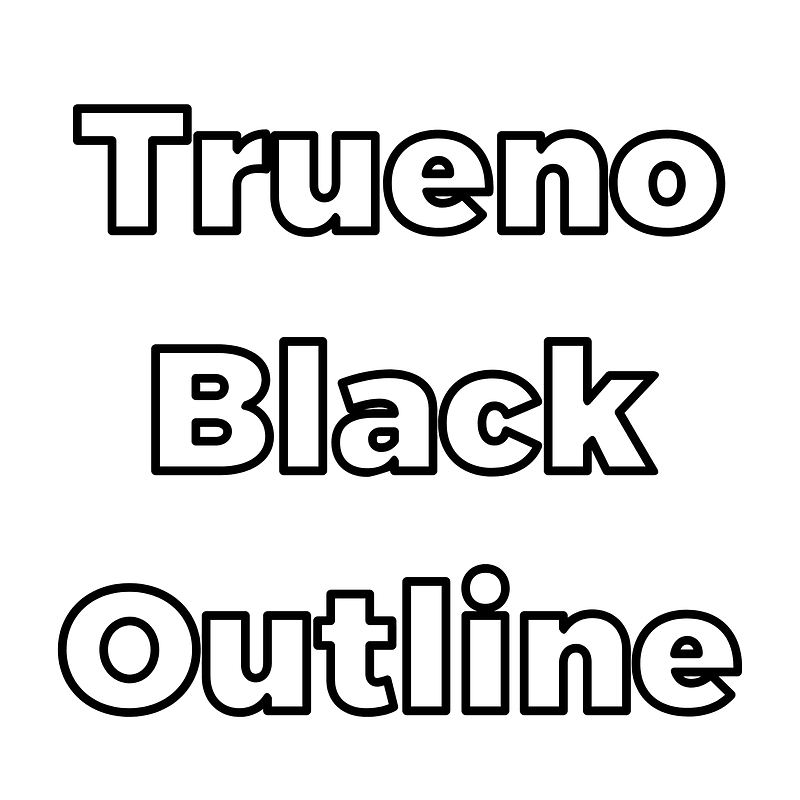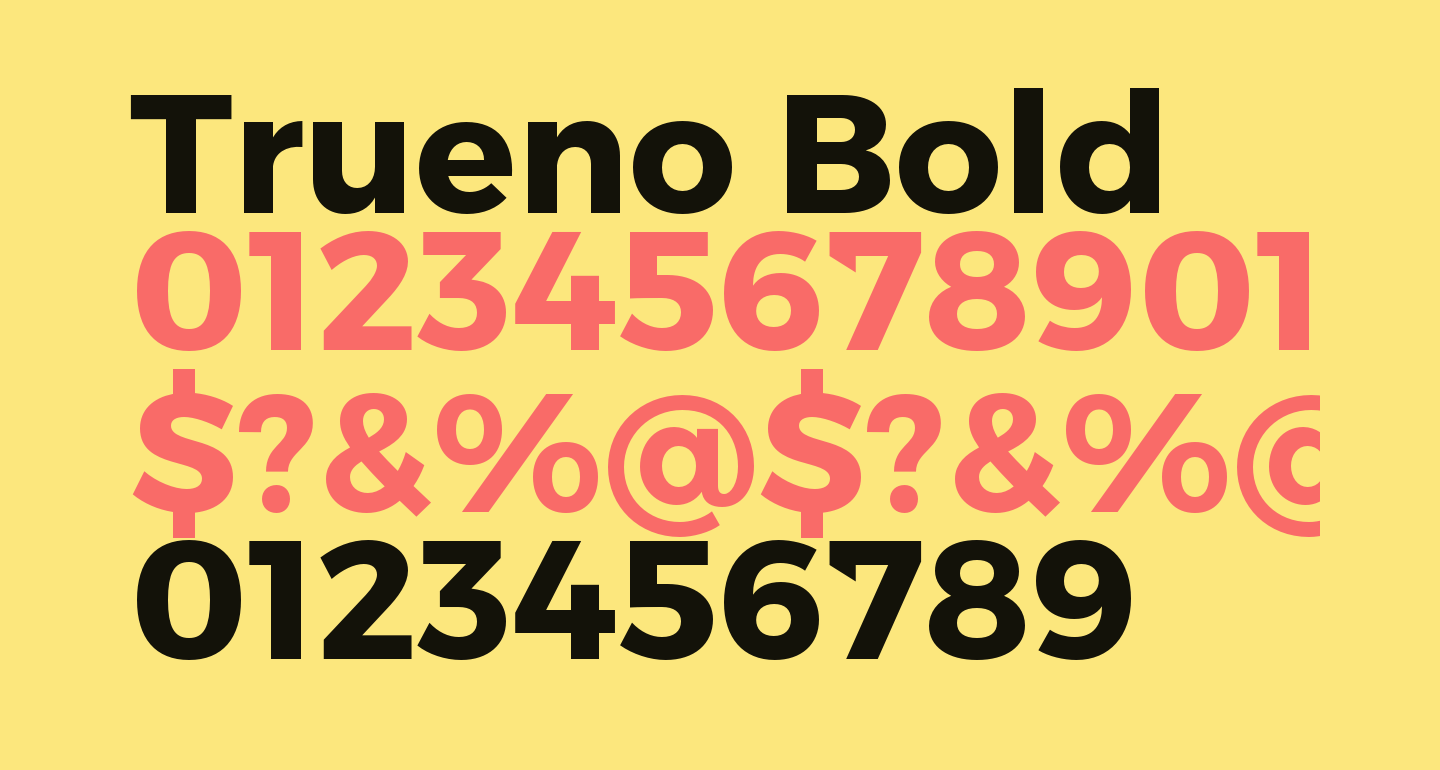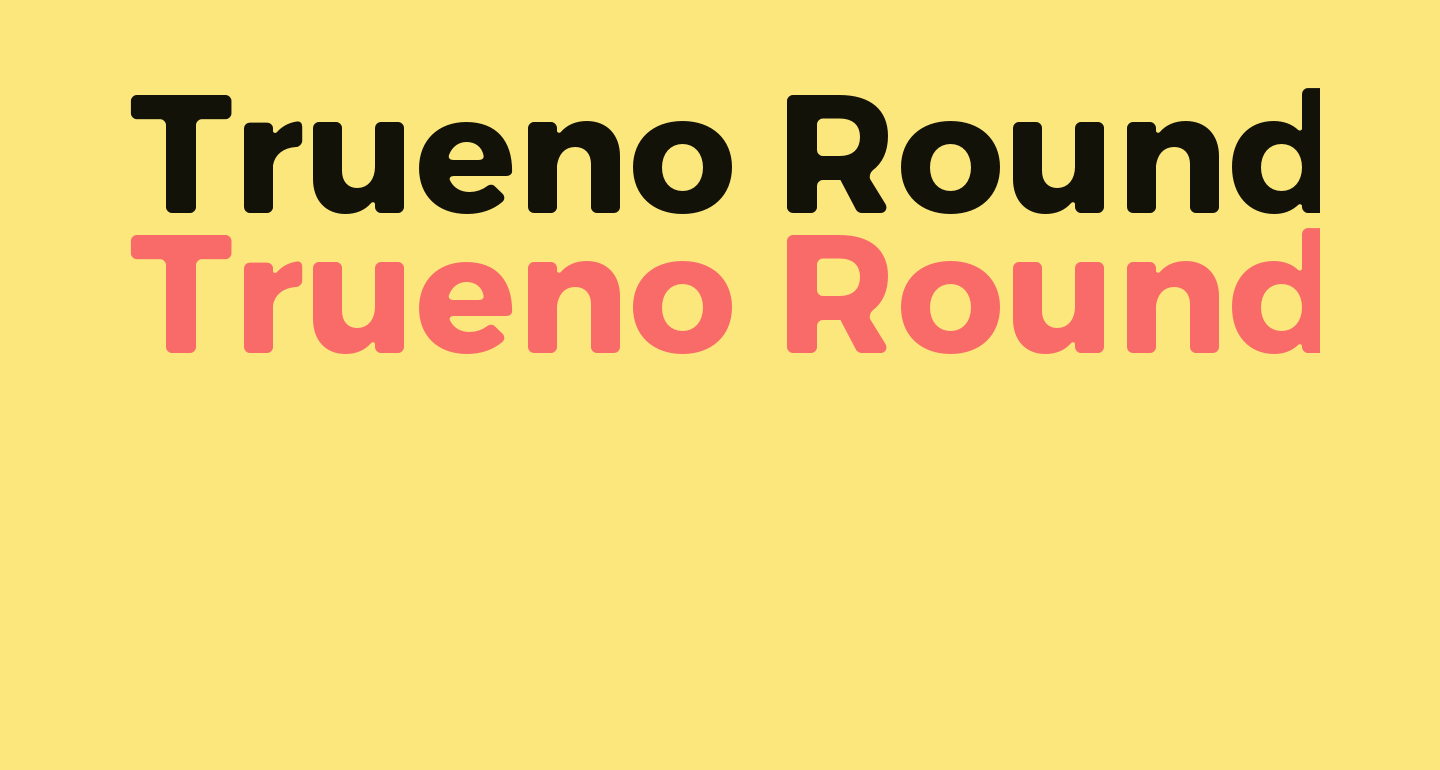
Trueno Font Commercial . Version 3.001b, adds 2 new weights,. The typeface contains 22 files and supports 53 languages.
The typeface contains 22 files and supports 53 languages. Web free download of trueno font family with 22 styles. Web the trueno font contains 378 beautifully designed characters.
This font is forked from montserrat by our newest designer, jasper. ️ customize your own preview on ffonts.net to make sure it`s the right one for your designs. Released in 2014 by kineticplasma fonts and licensed for. This font is forked from montserrat by our newest designer, jasper.
Trueno Font Commercial - Version 3.001b, adds 2 new weights,. The typeface contains 22 files and supports 53 languages. This font is forked from montserrat by our newest designer, jasper. Web trueno sans font family was designed by jasper as a modification of montserrat by the latest author, and contains two additional styles as well as reinforced font metadata, smaller font file sizes, and.
Trueno Font Commercial - Web trueno is a font. Web trueno sans font family was designed by jasper as a modification of montserrat by the latest author, and contains two additional styles as well as reinforced font metadata, smaller font file sizes, and many other enhancements. Released in 2014 by kineticplasma fonts and licensed for. Version 3.001b, adds 2 new weights,. The typeface contains.
Trueno Font Commercial - The typeface contains 22 files and supports 53 languages. The license is sil ofl 1.1. ️ customize your own preview on ffonts.net to make sure it`s the right one for your designs. Web the trueno font contains 378 beautifully designed characters. Web trueno font is a fork from the open source font, montserrat, licensed under the sil open font license,.
Trueno Font Commercial - Web trueno sans font family was designed by jasper as a modification of montserrat by the latest author, and contains two additional styles as well as reinforced font metadata, smaller font file sizes, and many other enhancements. Released in 2014 by kineticplasma fonts and licensed for. Version 3.001b, adds 2 new weights,. This font is forked from montserrat by our.
Trueno Font Commercial - The license is sil ofl 1.1. ️ customize your own preview on ffonts.net to make sure it`s the right one for your designs. This font is forked from montserrat by our newest designer, jasper. Version 3.001b, adds 2 new weights,. Released in 2014 by kineticplasma fonts and licensed for.
Trueno Font Commercial - Web free download of trueno font family with 22 styles. Released in 2014 by kineticplasma fonts and licensed for. ️ customize your own preview on ffonts.net to make sure it`s the right one for your designs. Web trueno sans font family was designed by jasper as a modification of montserrat by the latest author, and contains two additional styles as.
Trueno Font Commercial - Released in 2014 by kineticplasma fonts and licensed for. The typeface contains 22 files and supports 53 languages. Web the trueno font contains 378 beautifully designed characters. Version 3.001b, adds 2 new weights,. Web trueno font is a fork from the open source font, montserrat, licensed under the sil open font license, with several new.
Trueno Font Commercial - ️ customize your own preview on ffonts.net to make sure it`s the right one for your designs. Web the trueno font contains 378 beautifully designed characters. Version 3.001b, adds 2 new weights,. The typeface contains 22 files and supports 53 languages. Web trueno font is a fork from the open source font, montserrat, licensed under the sil open font license,.
Trueno Font Commercial - Web free download of trueno font family with 22 styles. ️ customize your own preview on ffonts.net to make sure it`s the right one for your designs. Web trueno is a font. The typeface contains 22 files and supports 53 languages. Web trueno sans font family was designed by jasper as a modification of montserrat by the latest author, and.
Trueno Font Commercial - Web free download of trueno font family with 22 styles. This font is forked from montserrat by our newest designer, jasper. ️ customize your own preview on ffonts.net to make sure it`s the right one for your designs. Version 3.001b, adds 2 new weights,. The typeface contains 22 files and supports 53 languages.
Trueno Font Commercial - Web trueno sans font family was designed by jasper as a modification of montserrat by the latest author, and contains two additional styles as well as reinforced font metadata, smaller font file sizes, and many other enhancements. Released in 2014 by kineticplasma fonts and licensed for. This font is forked from montserrat by our newest designer, jasper. Web free download.
Trueno Font Commercial - Web free download of trueno font family with 22 styles. The typeface contains 22 files and supports 53 languages. Released in 2014 by kineticplasma fonts and licensed for. Web trueno is a font. Web trueno sans font family was designed by jasper as a modification of montserrat by the latest author, and contains two additional styles as well as reinforced.
Trueno Font Commercial - ️ customize your own preview on ffonts.net to make sure it`s the right one for your designs. Web trueno font is a fork from the open source font, montserrat, licensed under the sil open font license, with several new. Web trueno sans font family was designed by jasper as a modification of montserrat by the latest author, and contains two.